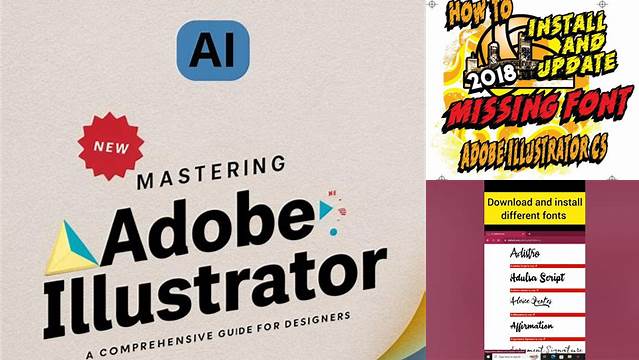
Mastering Fonts In Adobe Illustrator: A Comprehensive Guide
Hey guys! Let's dive headfirst into the awesome world of fonts in Adobe Illustrator. This guide is designed to be your go-to resource, whether you're a complete newbie or someone who's been around the block a few times. We'll cover everything from the basics – like how to install and manage fonts – to more advanced stuff like text effects and typography best practices. Get ready to elevate your design game and make those fonts sing!
H2: Understanding Font Fundamentals in Adobe Illustrator
Alright, let's kick things off with the basics. Understanding font fundamentals in Adobe Illustrator is like learning the alphabet before you can write a novel. It's the cornerstone of all your typographic adventures! So, what exactly is a font? Simply put, a font is a set of characters – letters, numbers, symbols – that share a consistent design. Think of it as a family, where each member (character) has a similar style. Adobe Illustrator gives you a ton of options, and knowing what they mean is crucial. First off, you've got font families. These are the big groupings, like Helvetica, Arial, or Times New Roman. They’re the overall style. Then within each family, you have font styles or weights: regular, bold, italic, and so on. These variations add emphasis and visual interest to your text. Understanding the difference between serif and sans-serif fonts is also a game changer. Serif fonts (like Times New Roman) have little decorative strokes at the end of the letters, which often give a more traditional or classic feel. Sans-serif fonts (like Arial) don't have those strokes, which tends to give a cleaner, more modern look. Knowing how to choose between them based on your project’s needs is essential. And hey, don’t forget about the font size! Illustrator uses points (pt) to measure size, and you'll adjust this to make your text readable and visually appealing. Finally, leading, tracking, and kerning are three more critical terms. Leading is the space between lines of text, tracking is the overall spacing between characters in a word or phrase, and kerning is the adjustment of space between specific letter pairs. Mastering these elements will give you control over the readability and appearance of your text. Guys, these are the bread and butter. Mastering these fundamentals will set you up for success with all of your Adobe Illustrator font-related projects.
H3: Choosing the Right Fonts for Your Design Project
Alright, let's talk about making font choices. Choosing the right fonts for your design project can be the difference between a design that pops and one that falls flat. First off, think about the message you want to convey and the audience you're targeting. Are you aiming for a playful, friendly vibe, or a more serious, professional tone? Each font evokes a different emotion, so think about the personality of your design. For instance, a delicate script font might be great for a wedding invitation, while a bold sans-serif font would be perfect for a tech startup's logo. Consider the readability of your fonts. While it's tempting to choose fancy, eye-catching fonts, ensure they are easy to read, especially in long blocks of text. Too many decorative fonts can be hard on the eyes. Pair fonts effectively. Don’t just pick two fonts and throw them together. Make sure they complement each other; think about how their styles, weights, and sizes interact. Contrast is great; it's what makes designs interesting, but make sure they are not too conflicting. Look at font pairings (Google it!) that work well together; this can save you a lot of time and guesswork. Always consider the context of your design. Where will your text appear? On a website, in a printed brochure, or on a mobile app? The environment will affect the readability. Websites often benefit from clear sans-serif fonts, while print materials might be more flexible. Also, think about legibility, especially for long-form content. A font that looks great in a headline may be a disaster for body text. Prioritize clarity. Finally, don’t be afraid to experiment. Try out different font combinations and styles until you find the ones that work best for your specific project. Create a mood board or gather inspiration from other designs. This helps visualize the look you're going for. It's all about trial and error, guys!